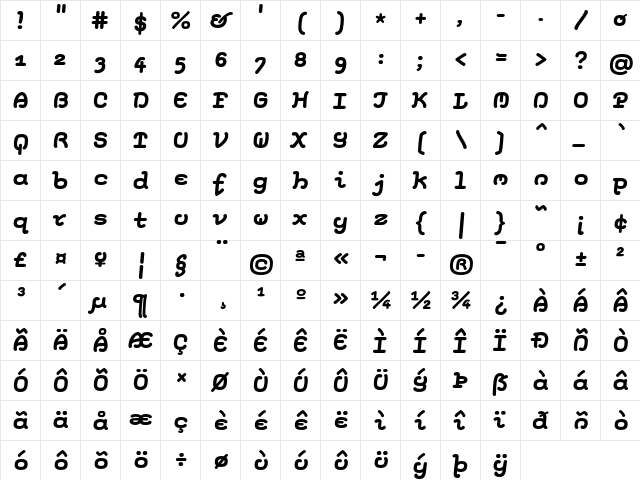
Elementis LT Std Bold
| Foundry | Linotype GmbH |
| Designer | Hans-Jn Ellenberger |
Design Context for Elementis LT Std Typeface
Elementis LT Std takes a measured approach to typography — its balanced proportions and neutral character make it a reliable workhorse for both digital and print work. The heavy weight commands attention and anchors typographic hierarchies.